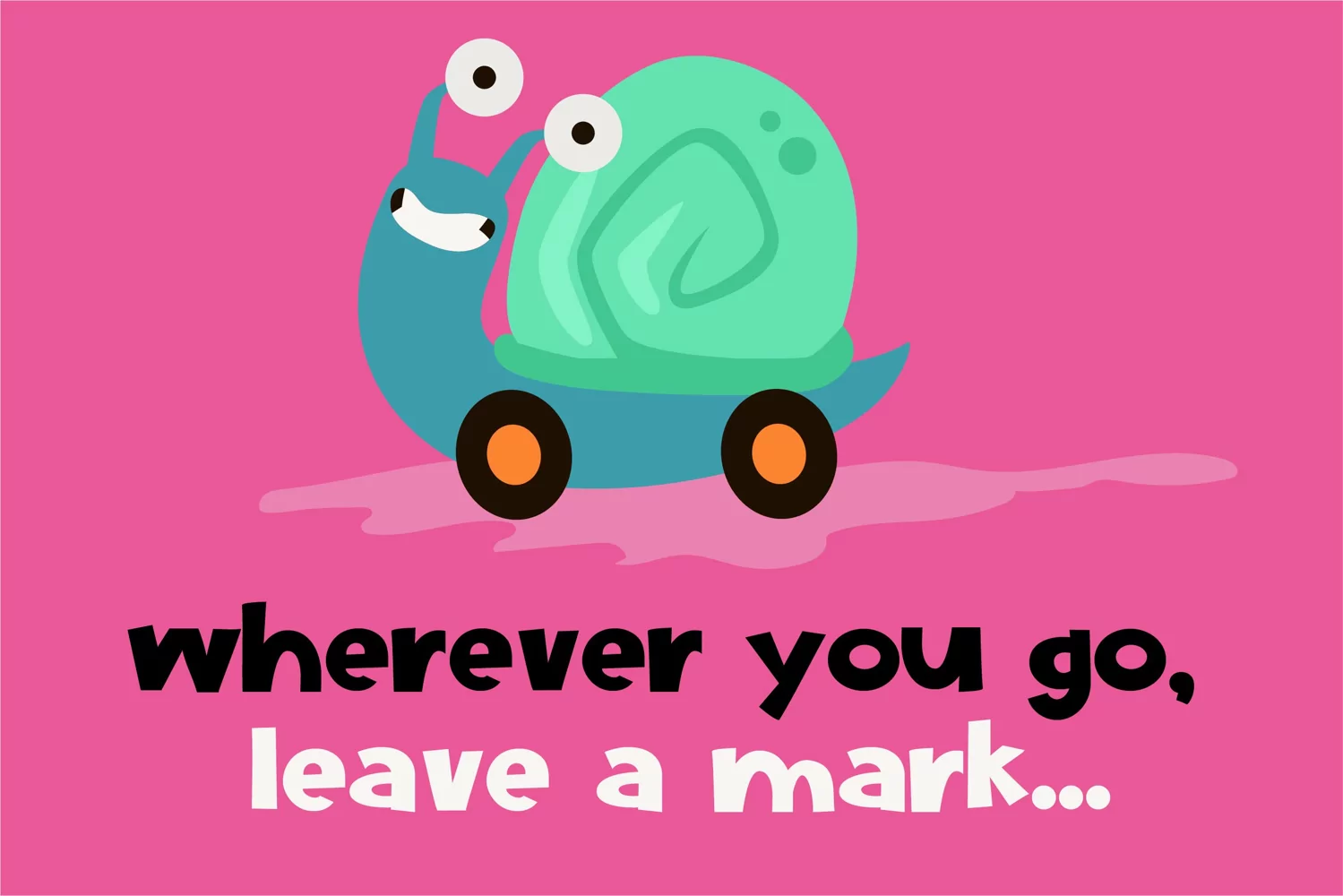
Generous is a friendly display font, that is youthful and whimsical and comes with a very adaptable style. It embodies playfulness and authenticity and is the perfect choice for any children activity or school project. Includes regular and stitch.